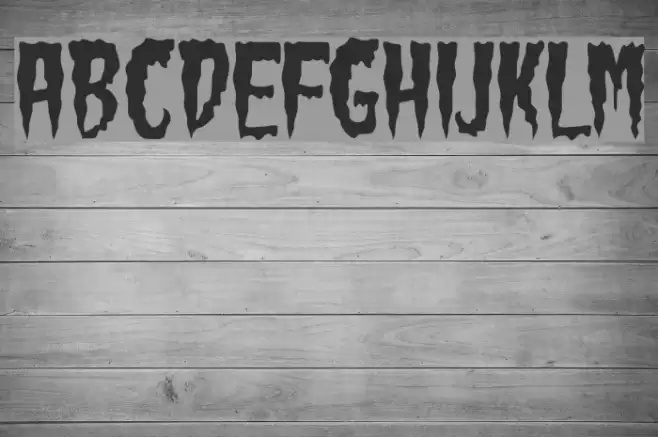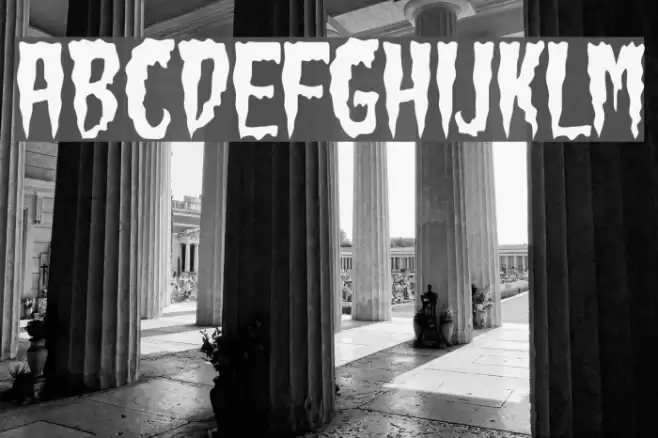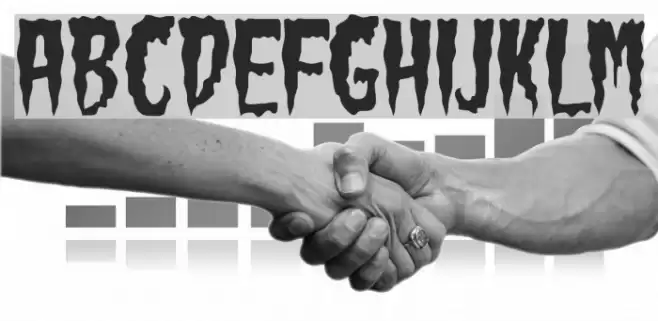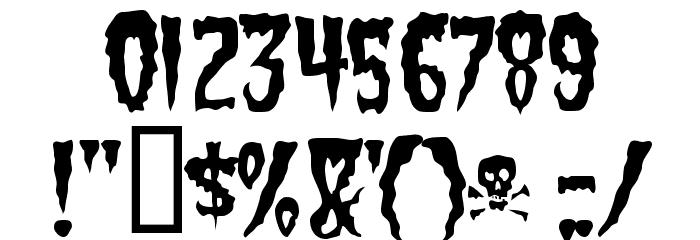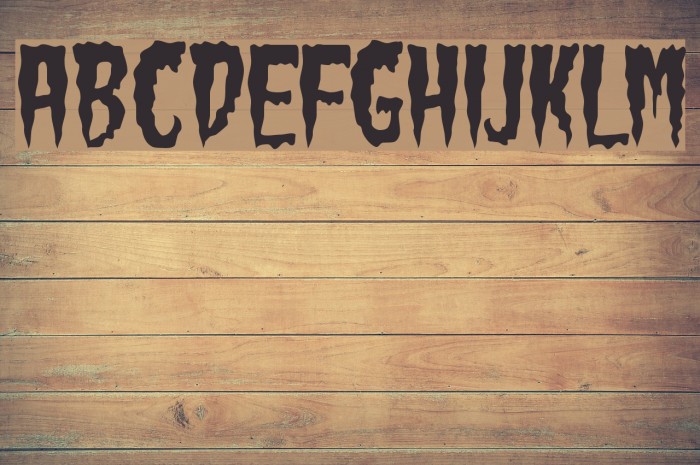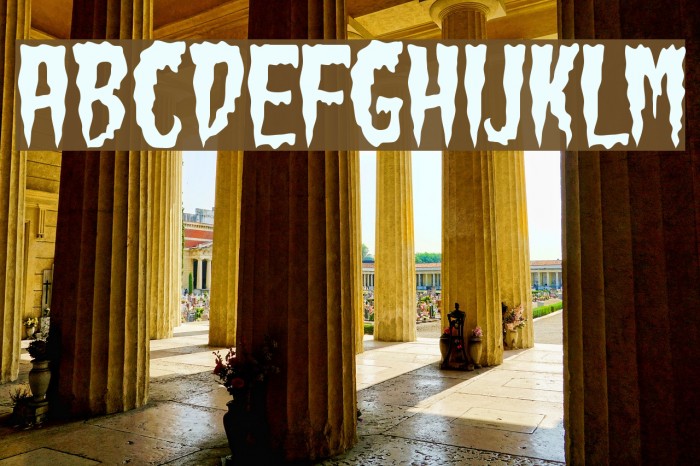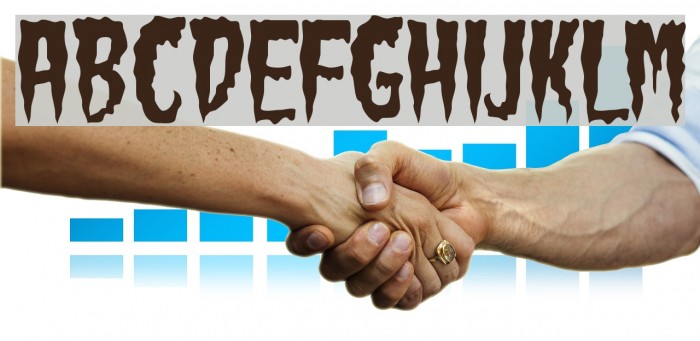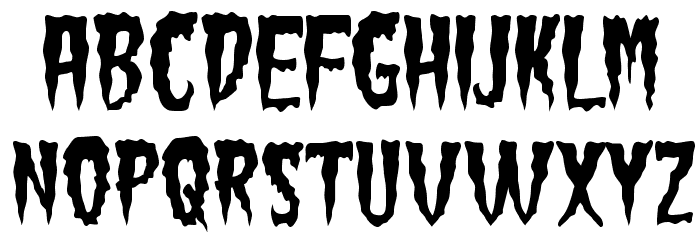
Green Fuz Font
Green Fuz Description
This font features a jagged, irregular style that evokes a sense of horror and mystery. The characters appear as if they are melting or dripping, creating a dynamic and unsettling visual effect. The uppercase and lowercase letters maintain a consistent theme, with sharp edges and uneven lines that suggest movement and chaos. Numbers and special characters follow the same design principles, enhancing the overall eerie aesthetic. This font is ideal for projects that require a dramatic and eye-catching typeface, such as Halloween-themed designs, horror movie posters, or spooky event invitations.
A jagged, horror-themed font with a dripping effect from Decorative fonts.